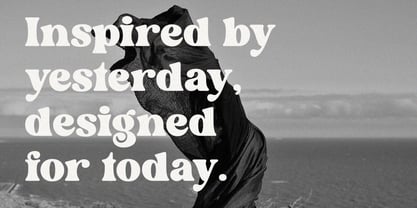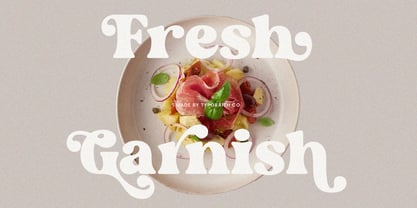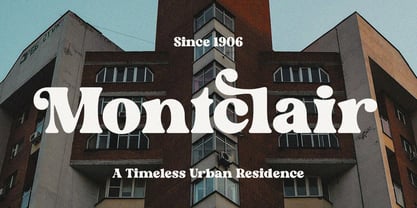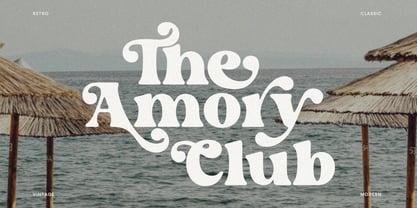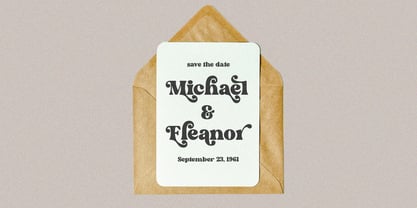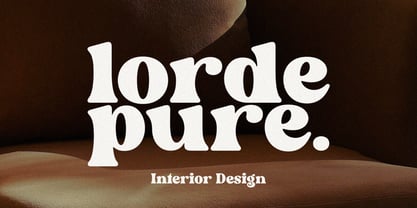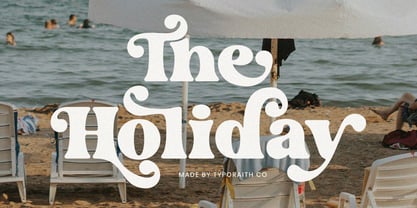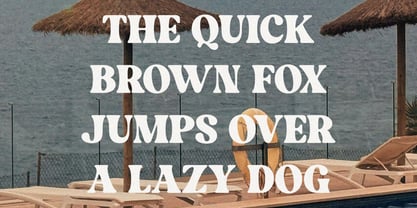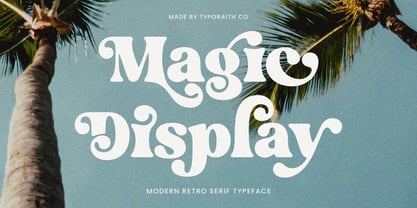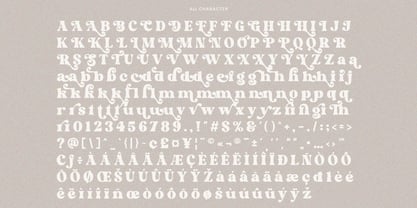
Magic Display
by Typoraith Co
The Magic Display Font Family was designed by Rendy Riyananda and published by Typoraith Co. Magic Display contains 1 styles. More about this family
Magic Display is a modern retro serif typeface inspired by classic lettering, nostalgic print, and soft psychedelic curves. Designed to feel expressive yet elegant, Magic Display brings warmth, character, and a timeless charm to any visual project.
With its bold shapes, smooth curves, and playful terminals, this typeface is perfect for standout headlines and eye-catching designs. It works beautifully for branding, posters, editorial layouts, packaging, album covers, fashion projects, and retro-inspired visuals.
Magic Display balances vintage personality with modern usability—making it a versatile choice for designers who want a strong display font that feels both classic and fresh.
- Alternates & Ligatures
Created with care to deliver strong visual impact while remaining clean and readable.
Designers: Rendy Riyananda
Foundry: Typoraith Co